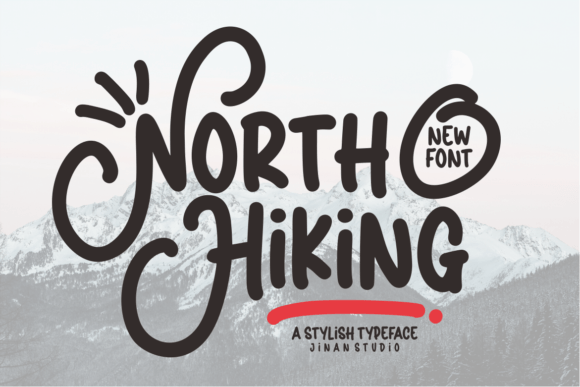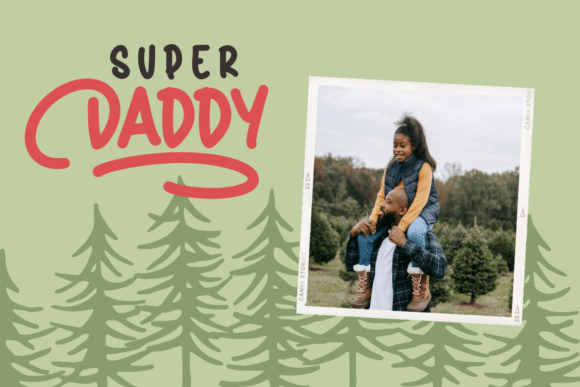
North Hiking Font
North Hiking is a stylish and modern sans serif font, suitable for a wide spectrum of applications. From greeting cards to headlines, branding and packaging, this font will guarantee a happiness touch to each of your creations!